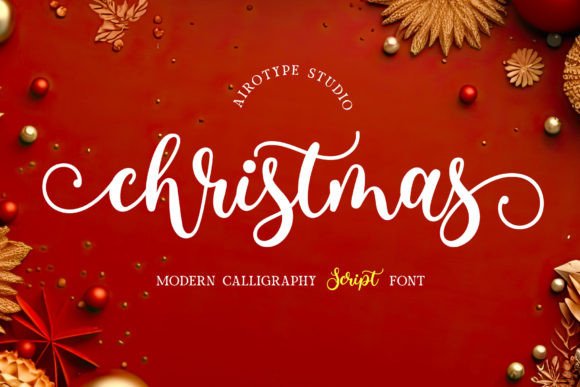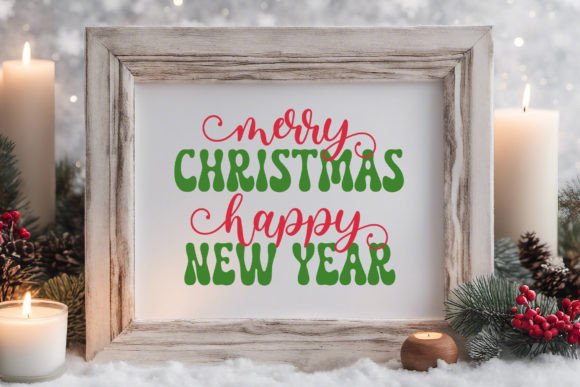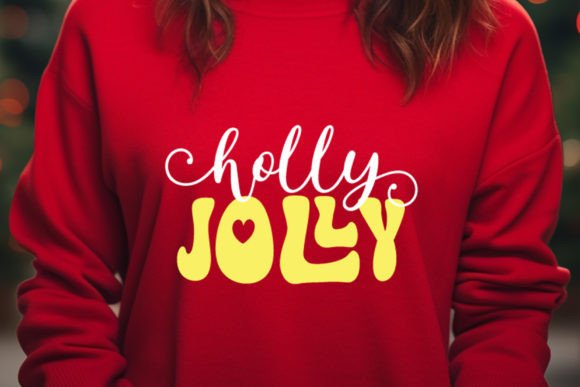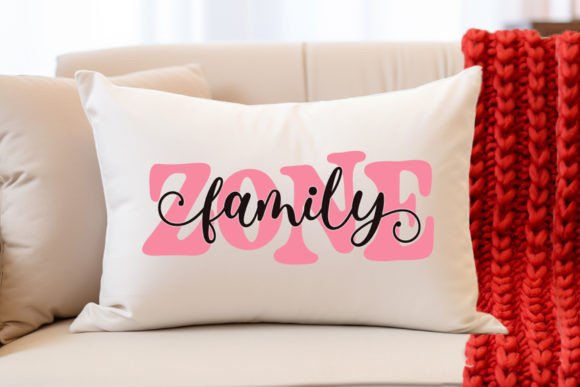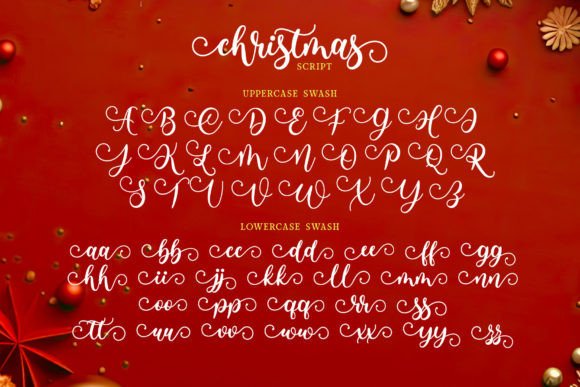
Christmas Script Font
Christmas Script is modern and elegant handwritten script font. It has swirl swash for its front and back.
Christmas Script is beautiful font for design with elegant and lovely vibes, such as christmas design, wedding, invitation, stickers, sublimation, cards, birthday, t-shirt design, farmhouse design, and others.